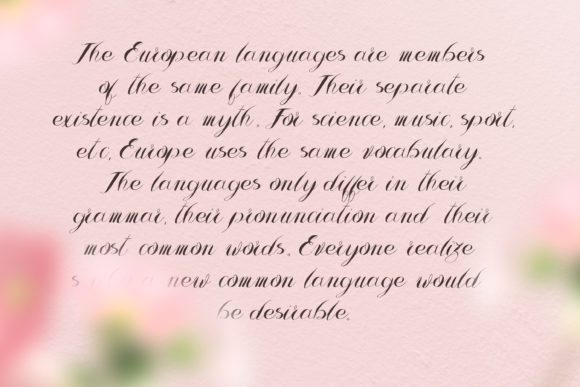
Leranda Font
About Leranda Font
Leranda is an elegant and flowing handwritten font. Its distinct and romantic style makes this font incredibly fit for your most favorite designs. Use it for wedding invitations, greeting cards, anniversaries and more. Leranda will look spectacular in both formal and non-formal contexts.